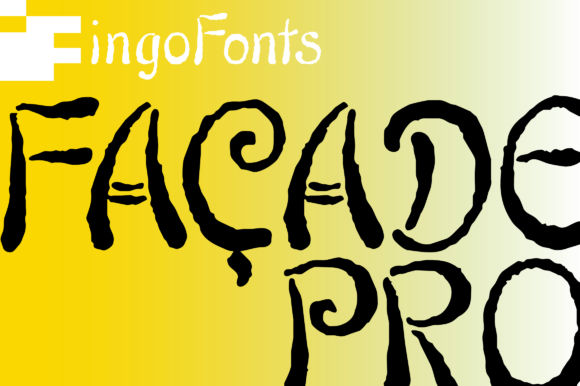
Façade Pro Font
Welcome to the captivating world of Façade Pro, a remarkable script font designed to ignite your creativity and elevate your designs to new heights. Each stroke of this typeface is infused with a playful spirit, adding a touch of whimsy and charm to your projects.
Façade Pro's unique and charismatic characters dance across the page, capturing attention and leaving a lasting impression. Its bold lines and free-flowing curves create a sense of movement and energy, making it perfect for conveying messages that demand attention.
With Façade Pro, you can craft personalized invitations that reflect your unique style, create eye-catching social media posts that stand out in the crowd, and design unforgettable branding materials that leave a lasting impact. Its versatility knows no bounds, extending from wedding invitations to logos, social media graphics, and everything in between.
Immerse yourself in the world of Façade Pro and let your creativity soar. Its playful nature invites you to experiment and express yourself, while its bold and confident strokes empower you to make a statement.
Unlock the potential of Façade Pro today and unleash the boundless possibilities of creative expression. Let its captivating charm guide you towards unforgettable designs that speak volumes.